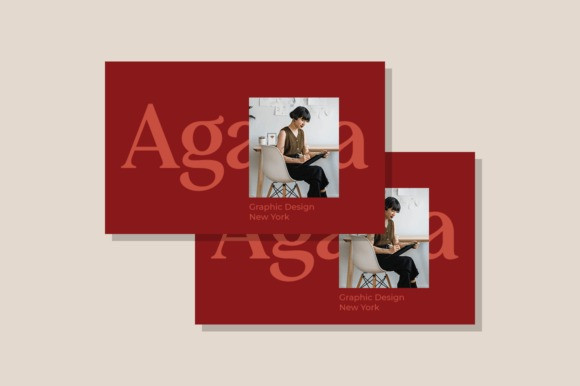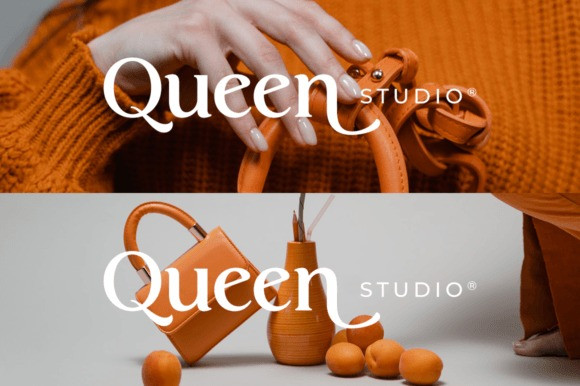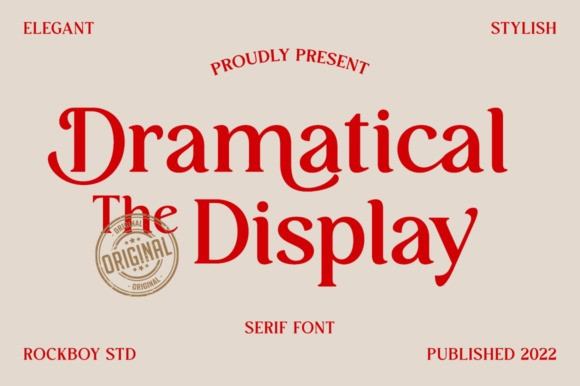
Dramatical The Display Font
Dramatical the Display Font is an elegant, thin-lettered, and distinct serif font. Suitable to a wide variety of designs due to its neat and clean style, this font has the potential to become your favorite go-to font, no matter the occasion!